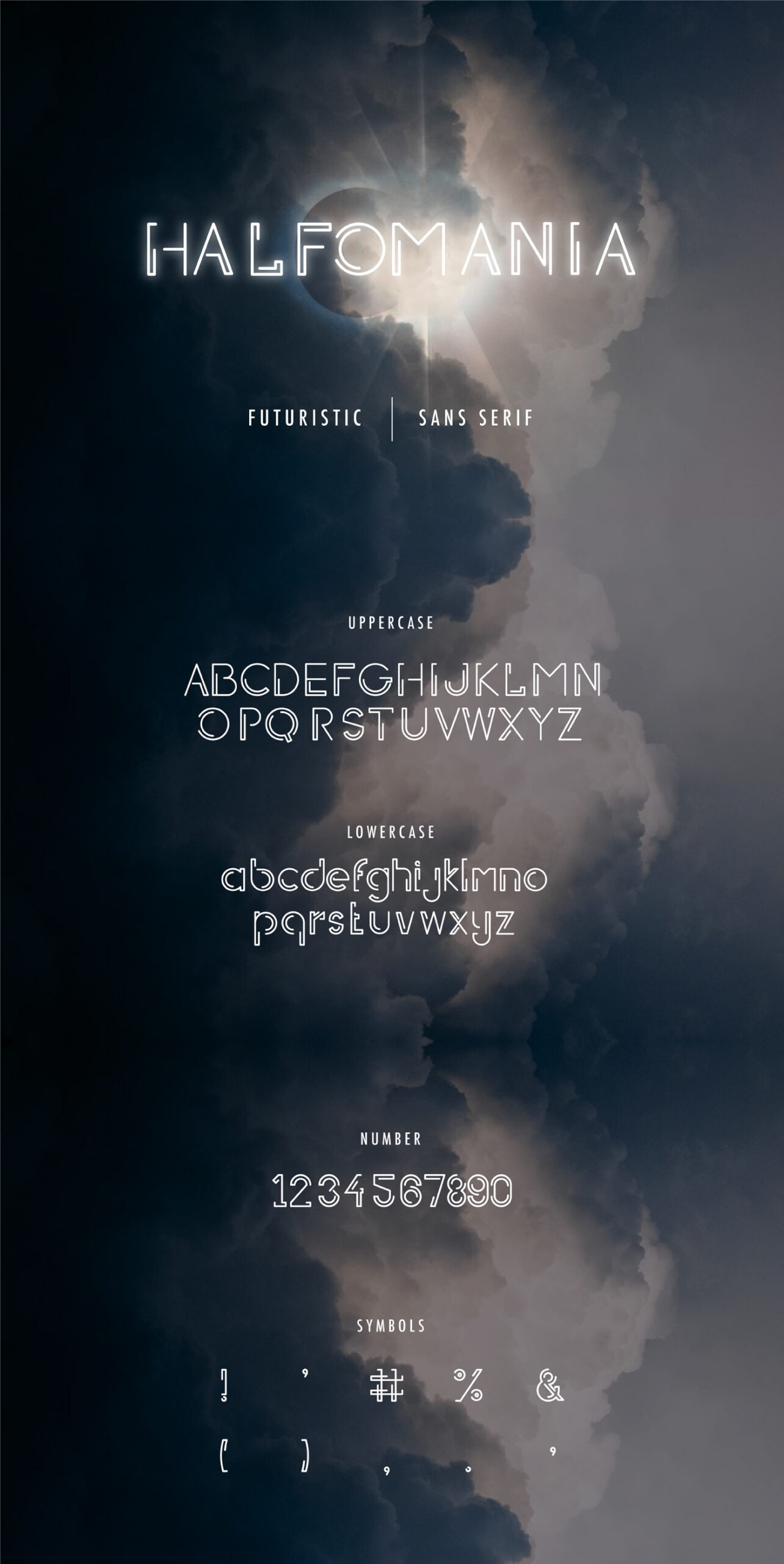
Created by Azer Nesib, Halfomania is a futuristic sans serif font. It is perfect for eye-catching logos, headlines, posters, titles and so much more! Free for personal and commercial use!